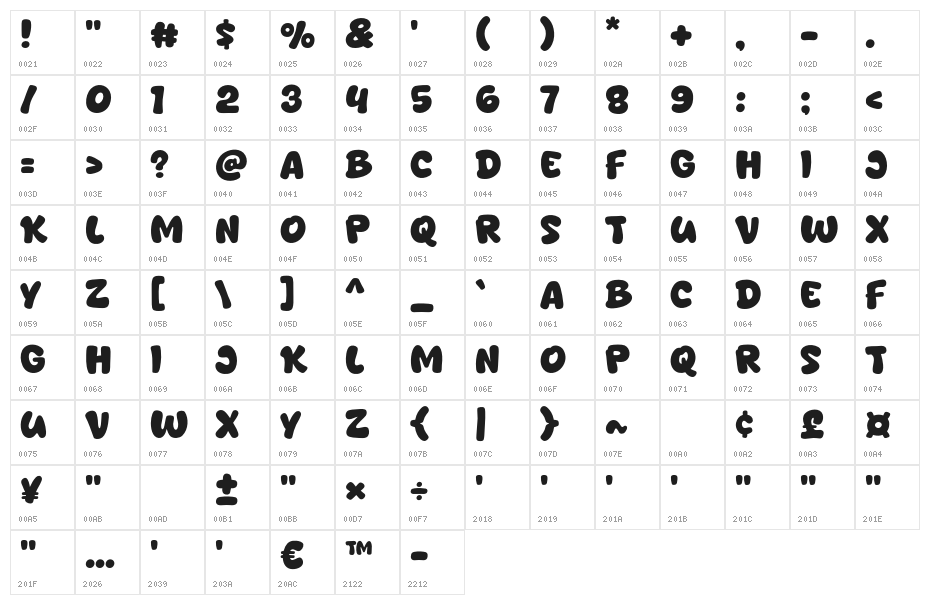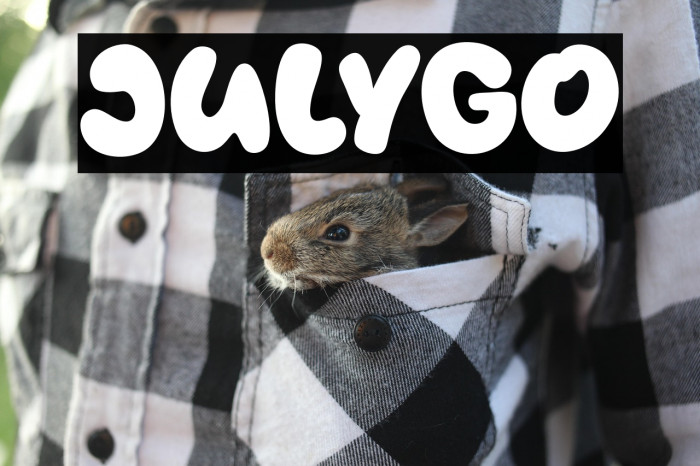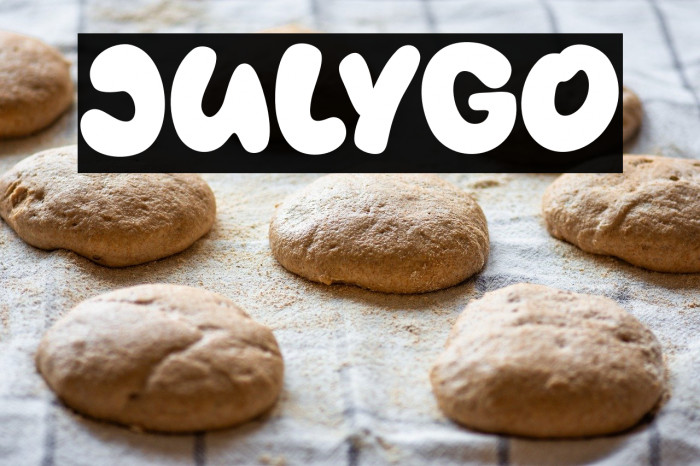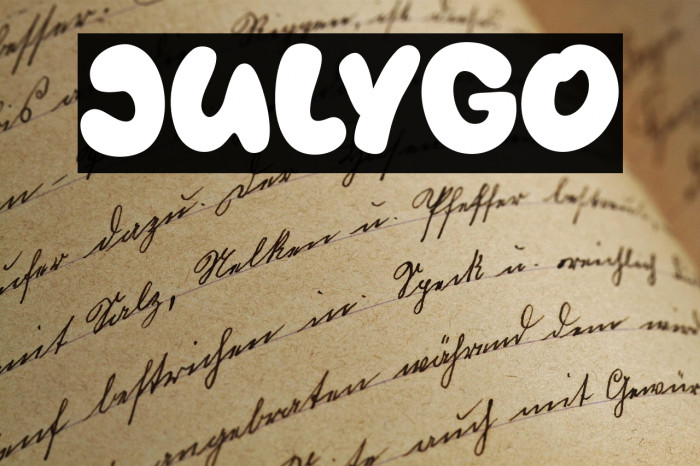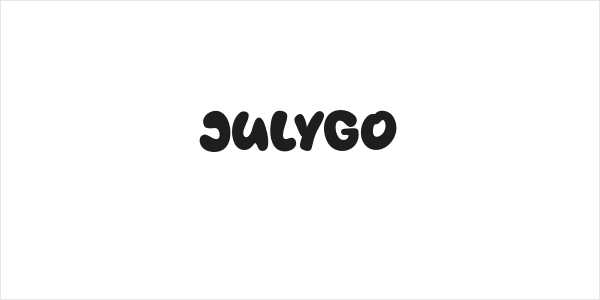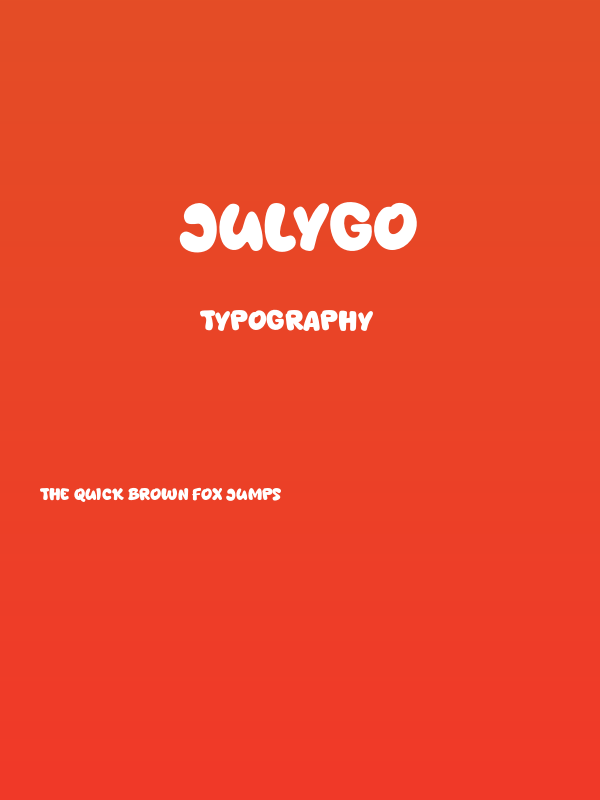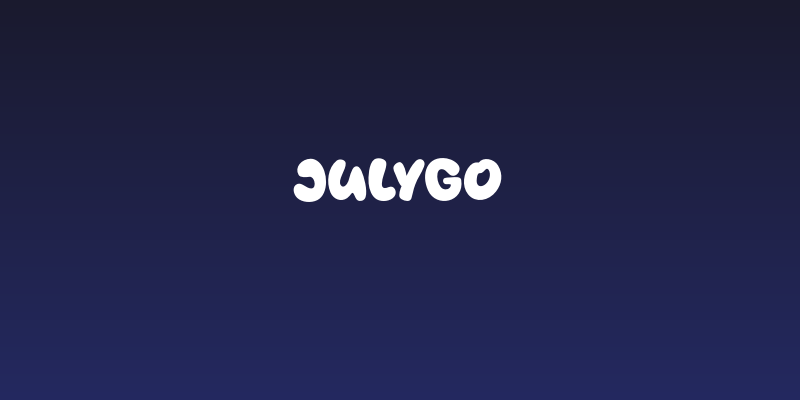
Julygo Font
Julygo Description
This font features a bold and playful design with rounded edges and a bubbly appearance. The characters are thick and have a consistent weight throughout, giving them a strong presence. The style is reminiscent of retro or vintage aesthetics, often seen in playful or informal settings. The letters are evenly spaced, contributing to a balanced and cohesive look. The font's unique style makes it suitable for eye-catching designs that require a touch of whimsy and fun.
| Overall Style | Playful, Retro |
| Proposed Projects | Ideal for children's books, playful branding, posters, and party invitations. |